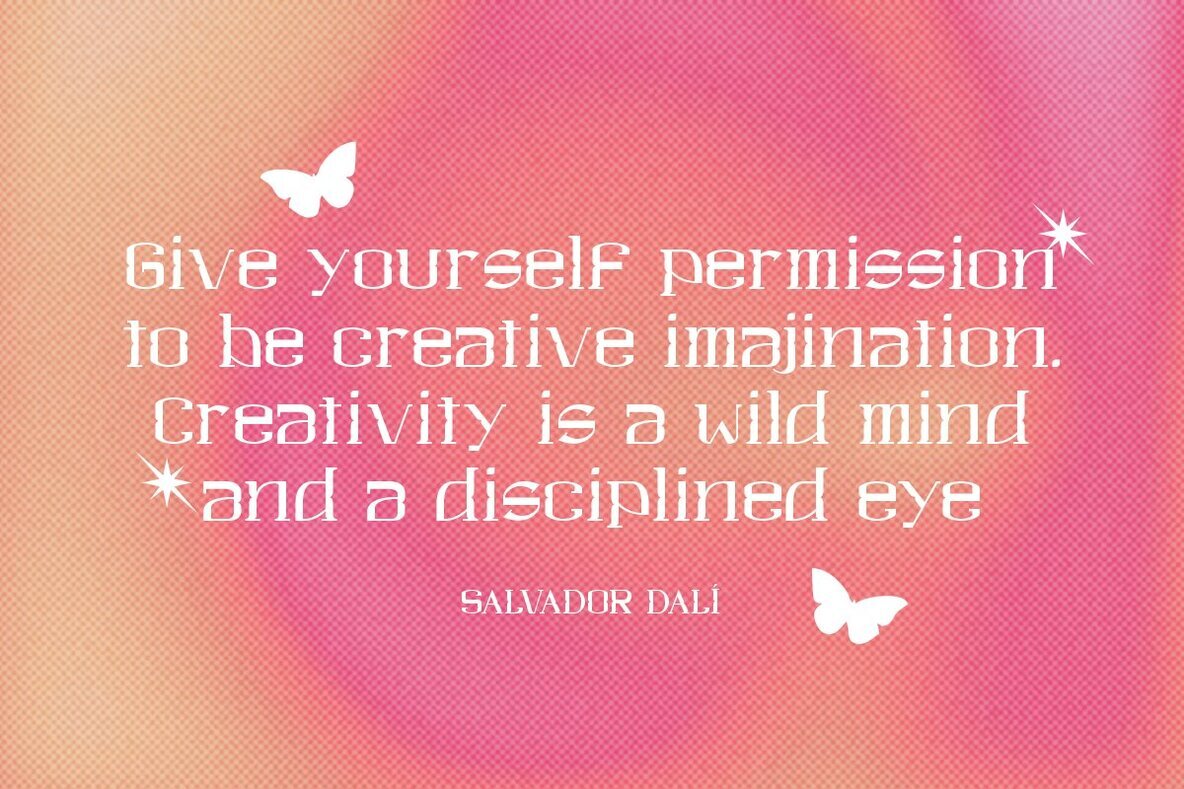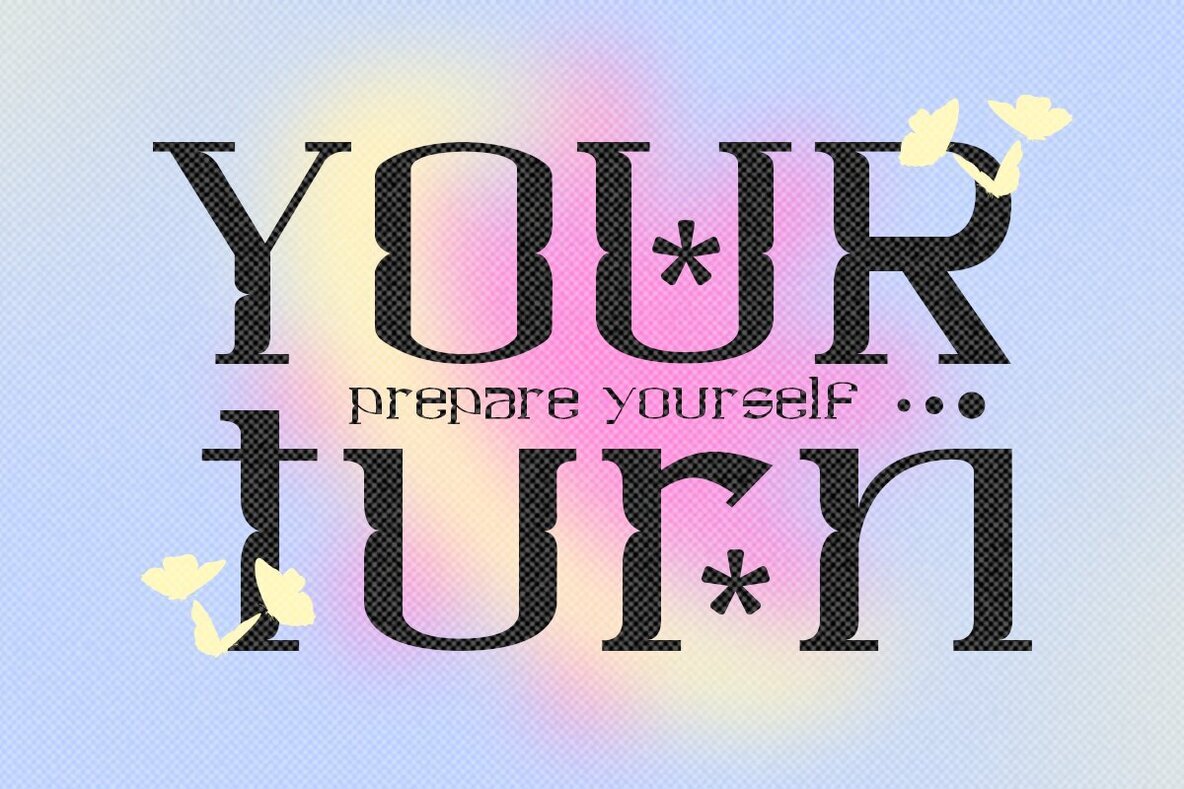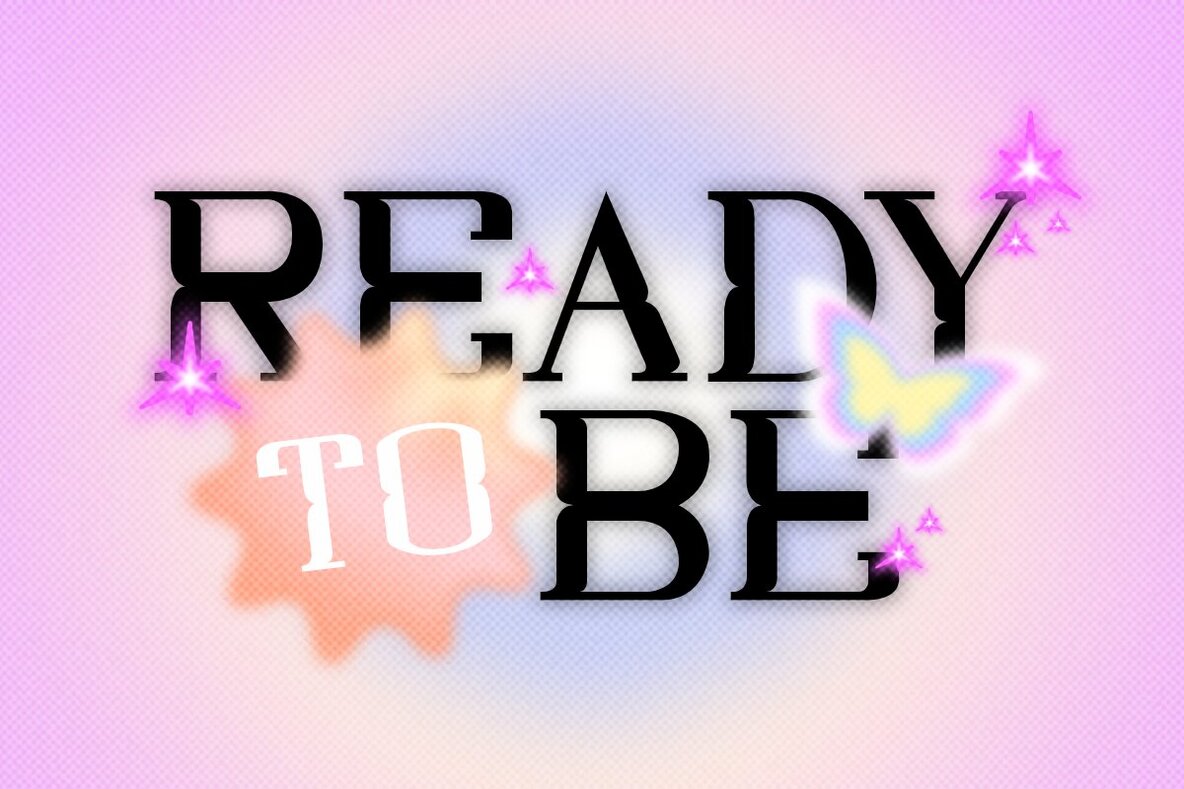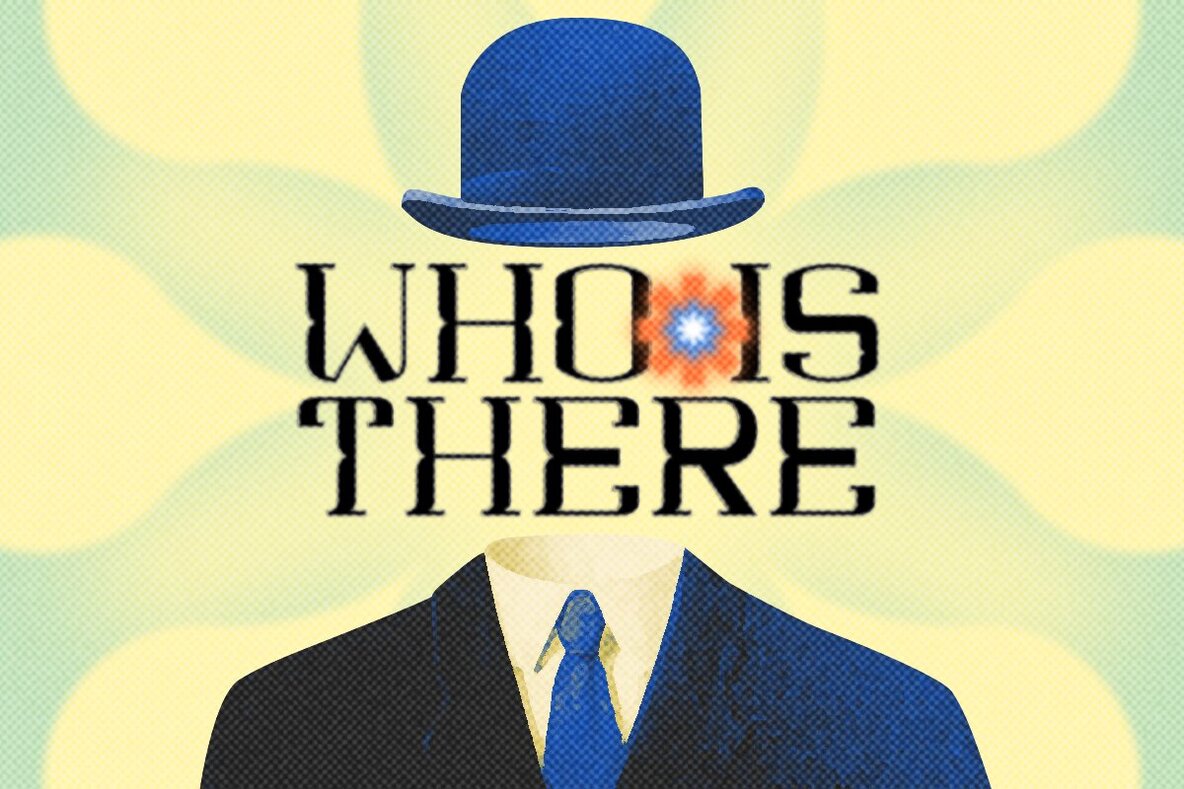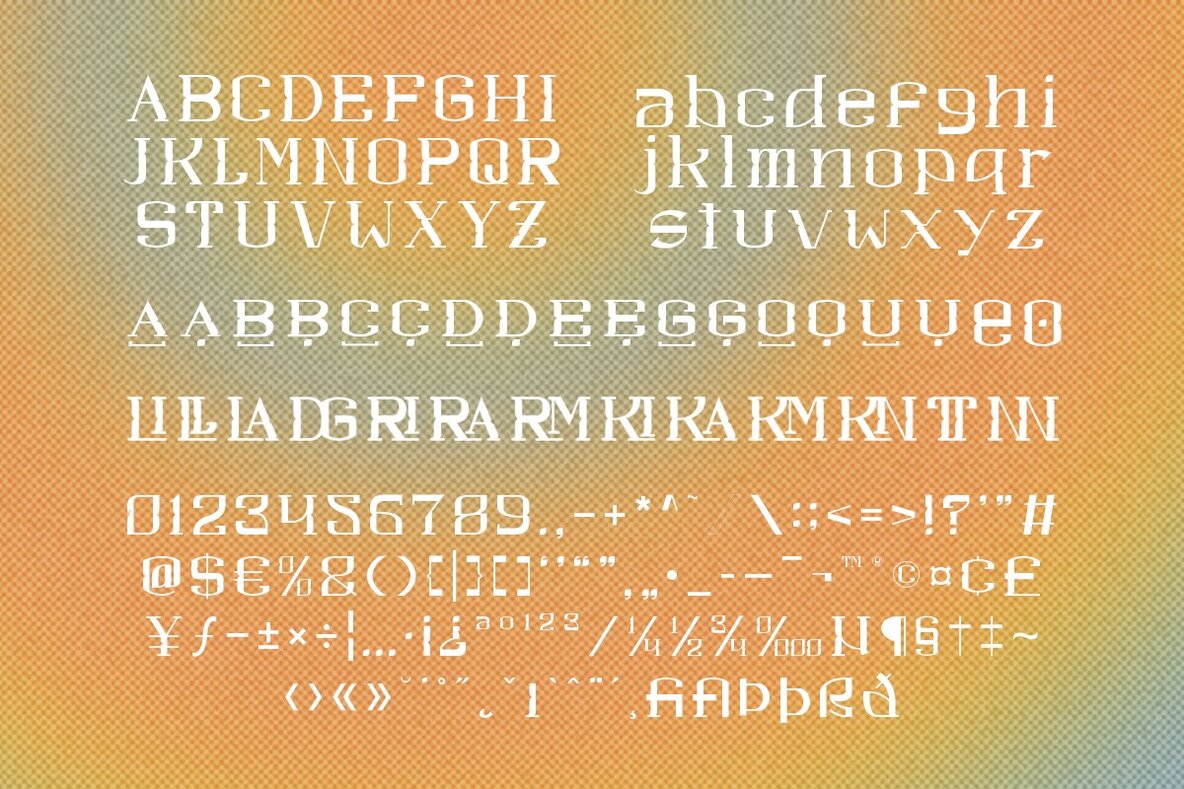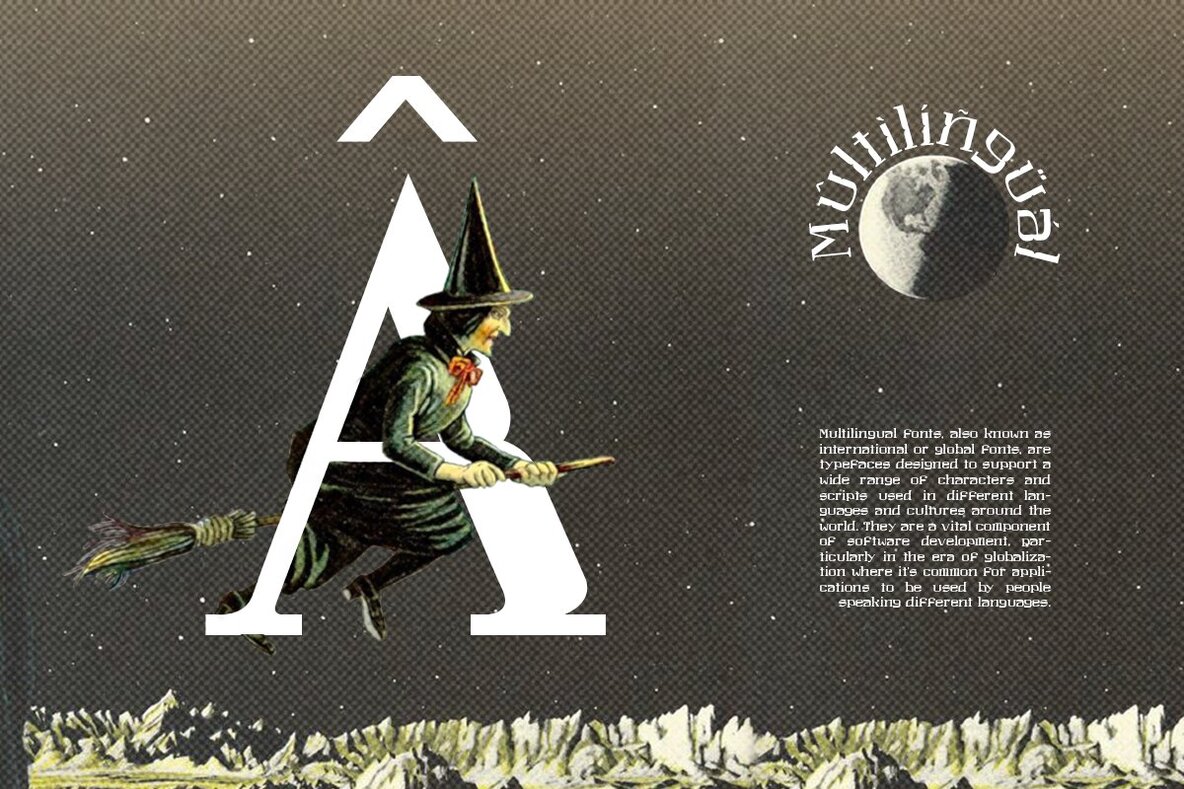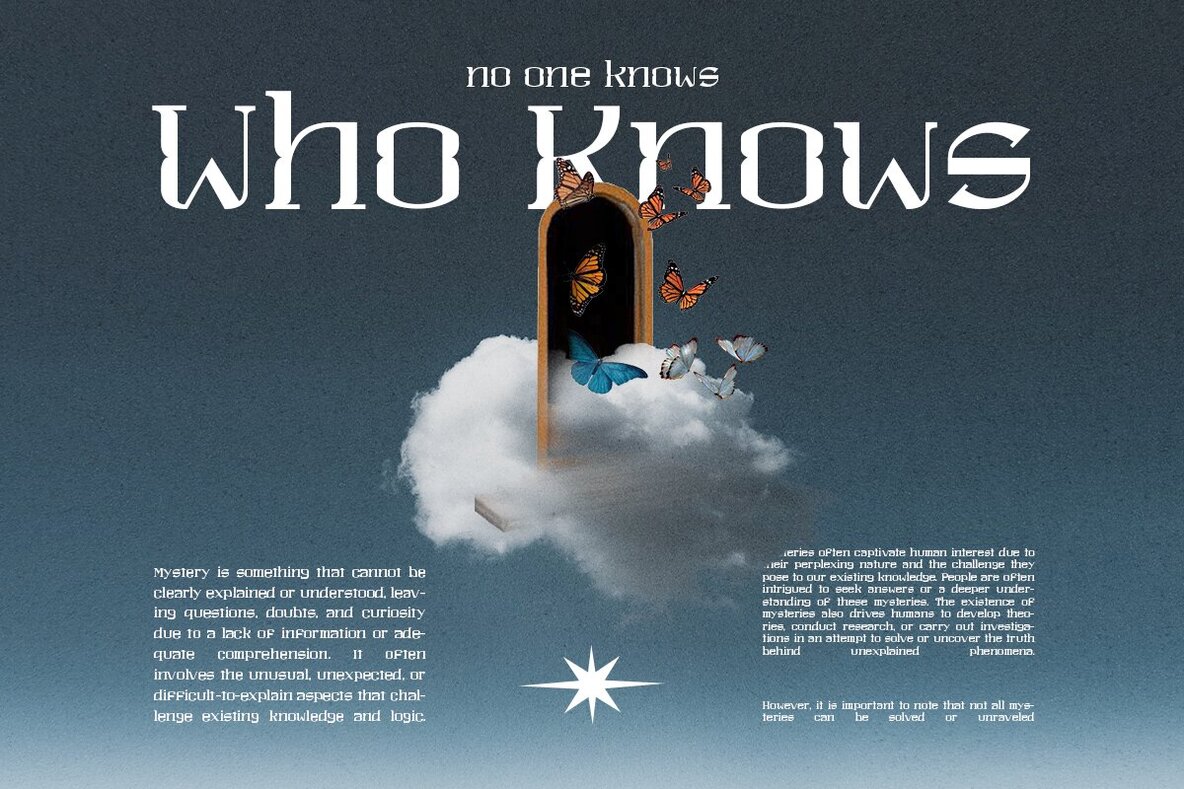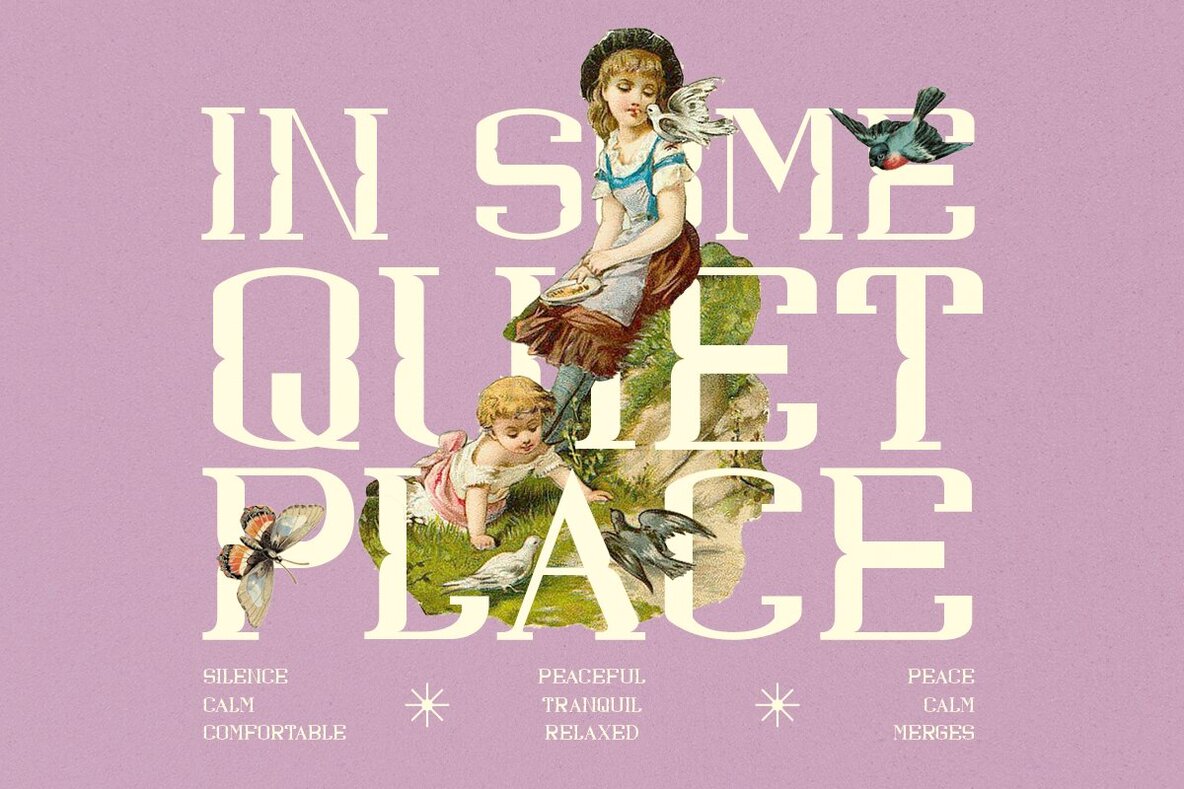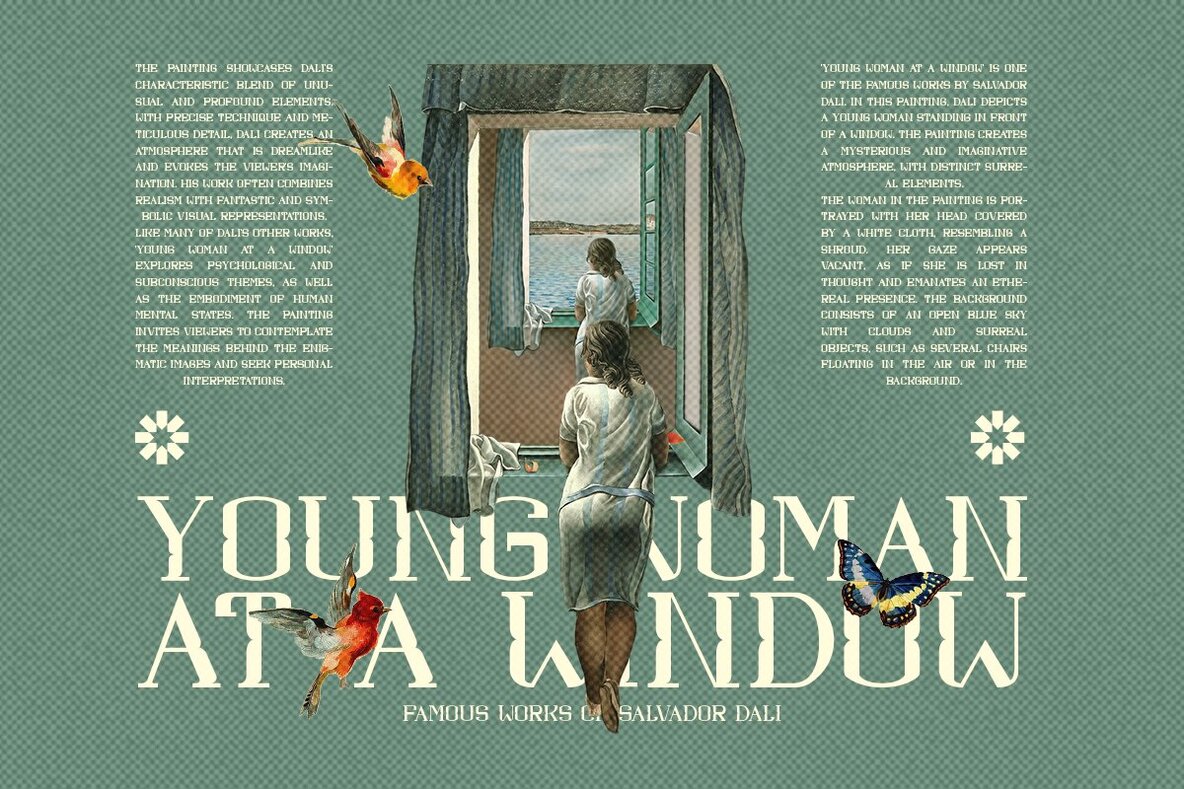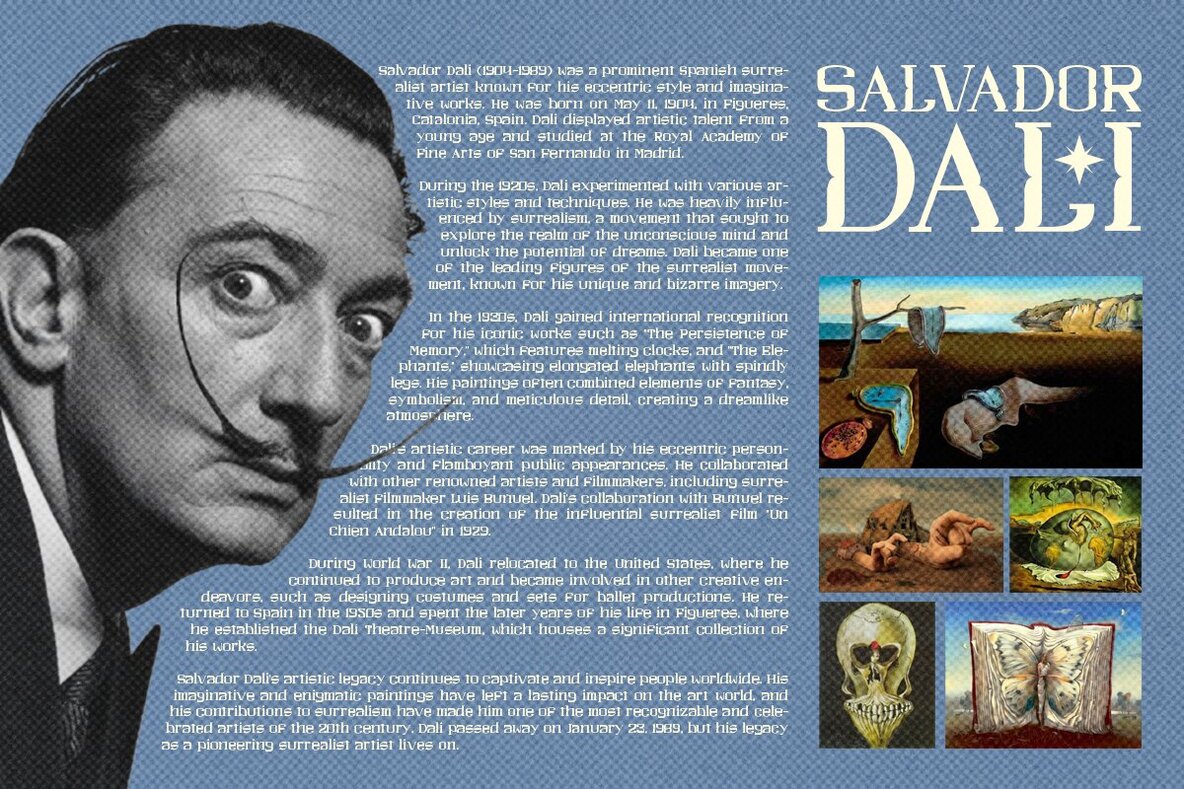
Nympho Font
Nympho Regular
Introducing our exciting new font, NYMPHO! Nympho - The perfect blend of modern Y2K vibes and unique style, featuring letter shapes that resemble playful rectangles. Nympho - Incredibly versatile and will elevate your projects, whether it's designing eye-catching magazine layouts, captivating posters, or any other creative endeavor. With its style preview channeling the coolness of the 90s and a touch of Y2K nostalgia, "Nympho" is ready to add a friendly and trendy twist to your designs. Features: